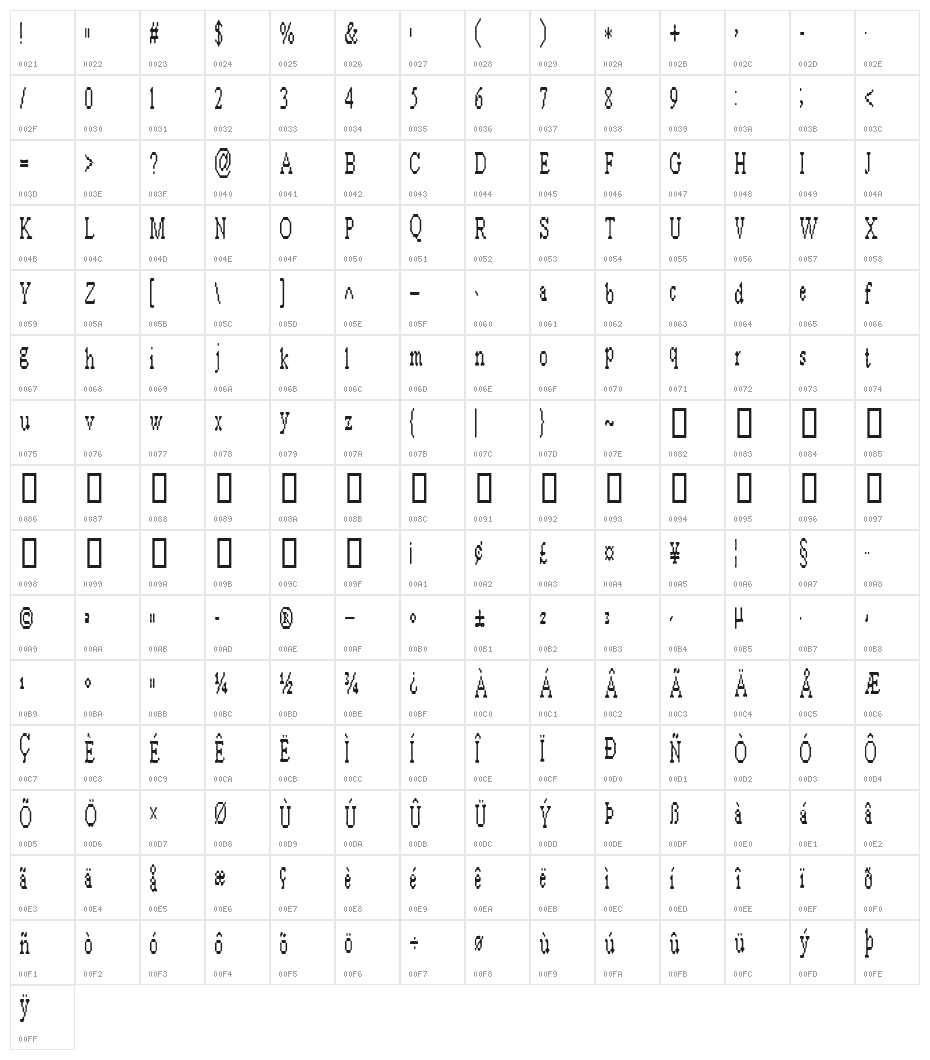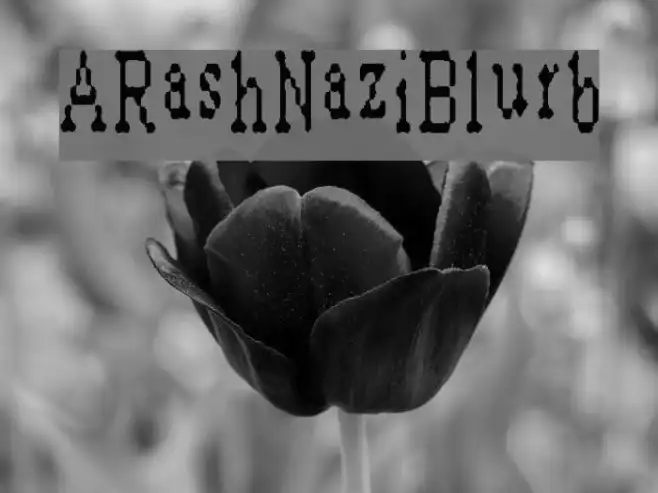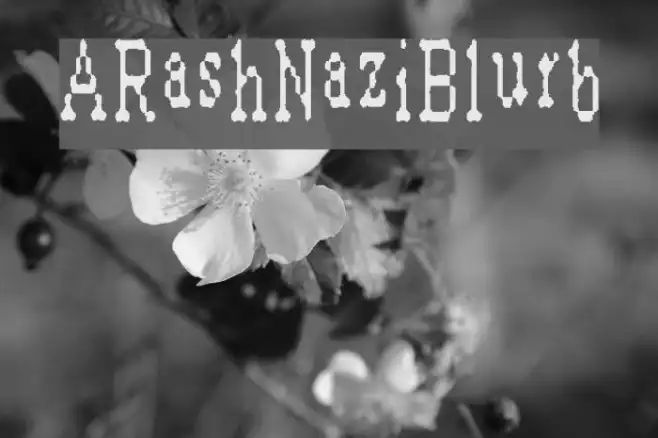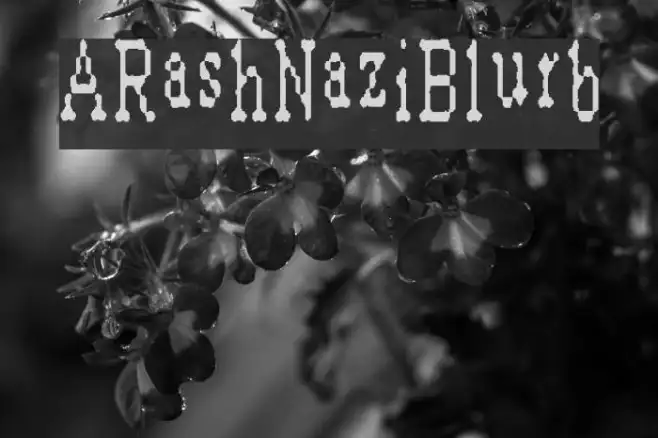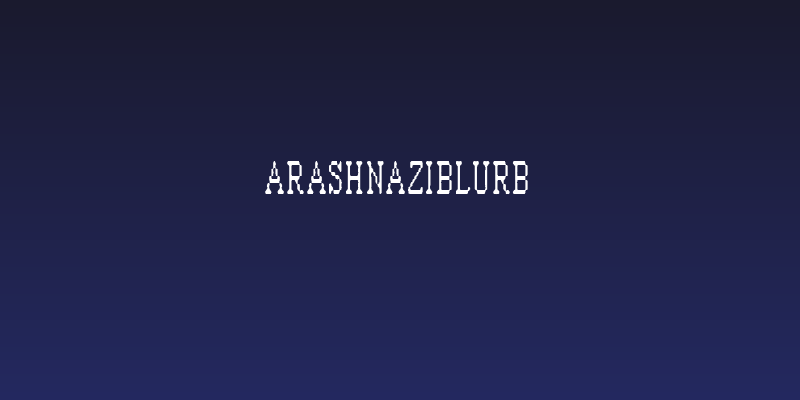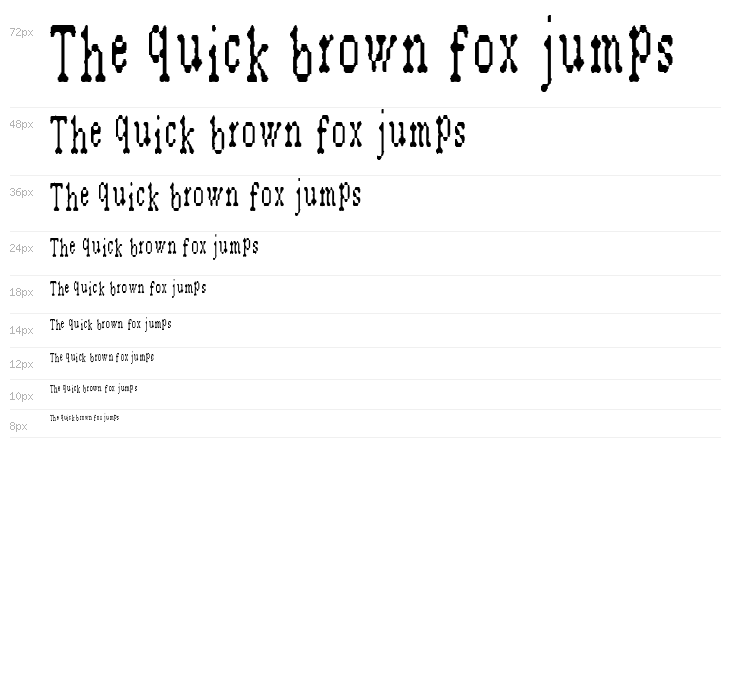
ARashNaziBlurb Font
ARashNaziBlurb Description
This font features a distinct, vintage style with a textured appearance that mimics the look of old typewriter or letterpress printing. The characters are serifed, with each letter exhibiting unique, irregular edges that give it a handcrafted feel. The uppercase and lowercase letters maintain a consistent style, with the uppercase being slightly more pronounced. Numbers and special characters follow the same design ethos, ensuring a cohesive look across all glyphs. The font's overall aesthetic is reminiscent of historical documents or antique prints, making it ideal for projects that require a touch of nostalgia or authenticity.
| Use Case | Headlines, Logos, Decorative text |
| Proposed Projects | Ideal for vintage-themed designs, historical documents, posters, book covers, and branding that requires an authentic, old-world charm. |